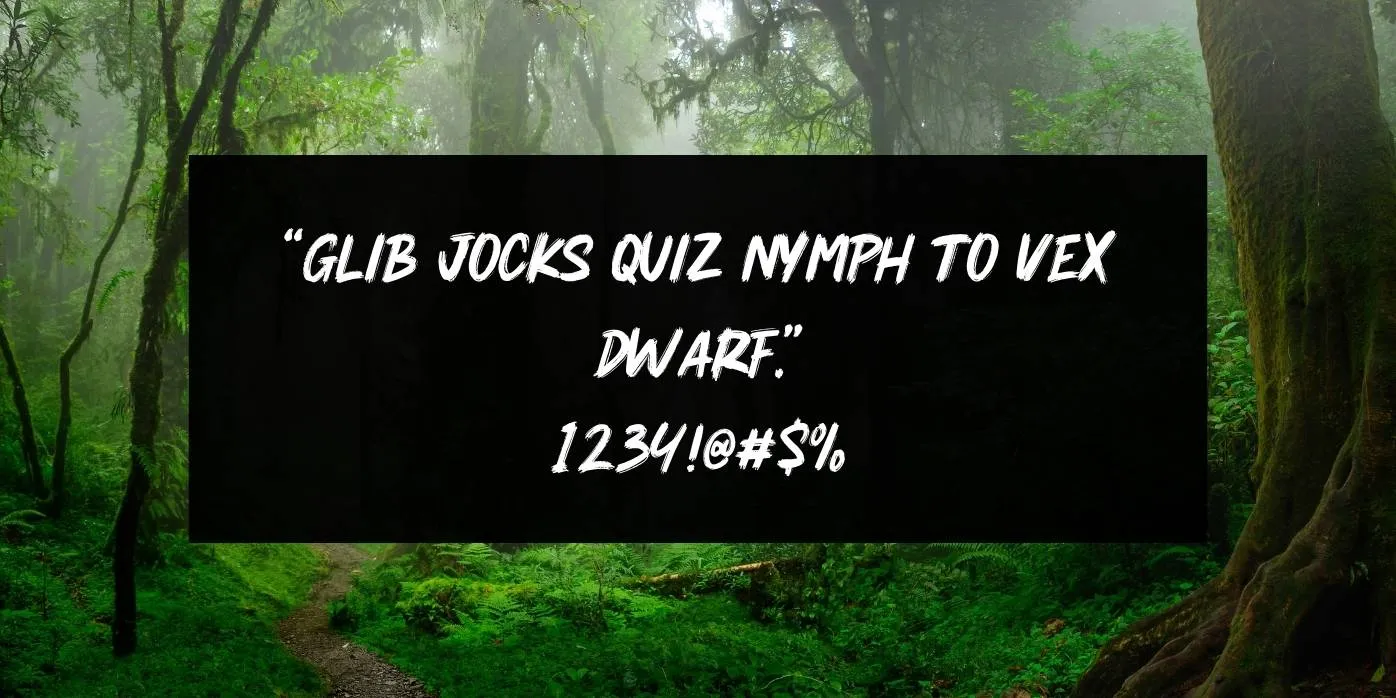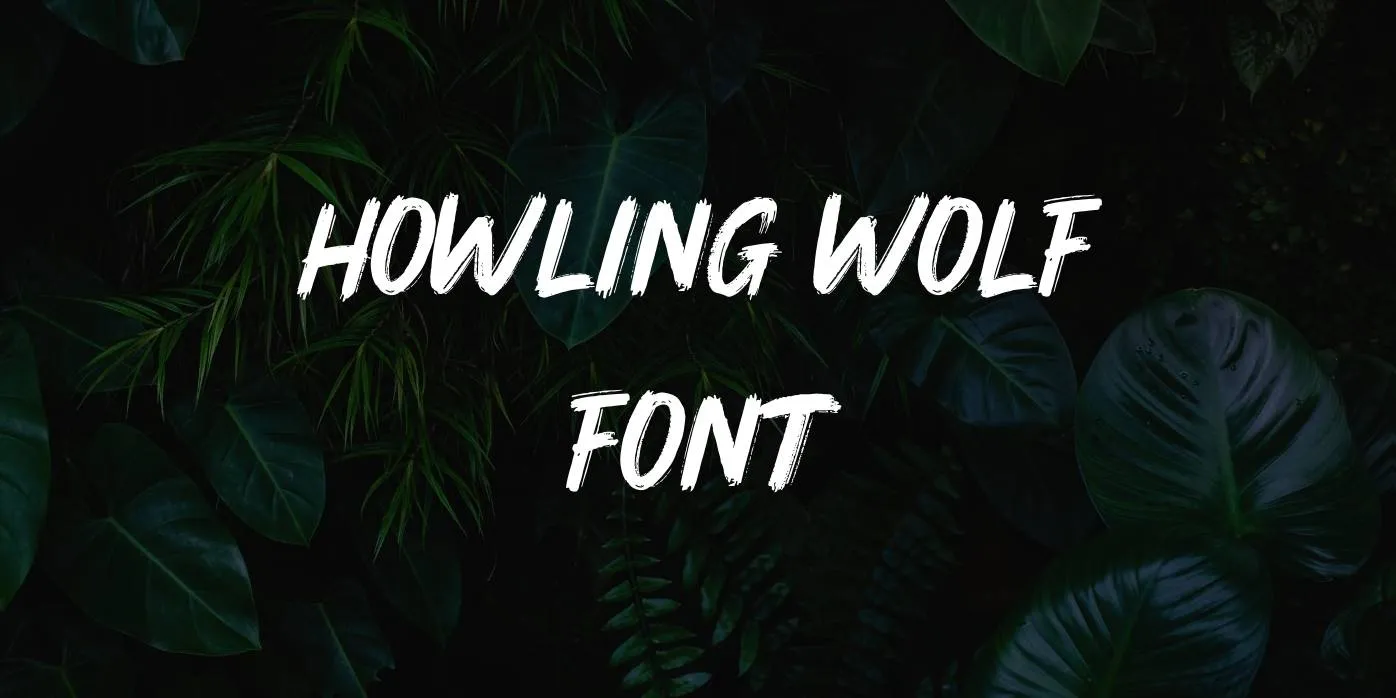
Howling Wolf Font
In this post, we present Howling Wolf Font which is very famous in the design industry. This typeface was developed by Gha Arizal, and belongs to the brush family. This stylish font is suitable for any design needs you may have, whether for personal or professional use. This typeface has a very strong personality and can be used to create amazing designs.
Howling Wolf Font is perfect for those who are looking for a brush font that has a strong personality. This family includes two styles, regular and bold. Both styles are available in both TTF and OTF formats. This typeface is perfect for any project that requires a brush font with a strong personality.
This typeface has a very unique style, and it is perfect for creating amazing designs. If you are looking for a font that has a strong personality, then this stylish font is perfect for your projects. For more classic features, you will have to use its alternative westfalia font which has the same features. One more classic facility of this typeface is its generator tool.